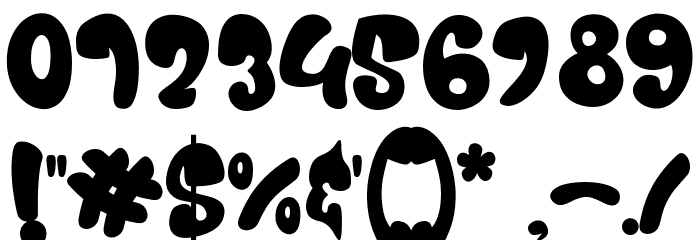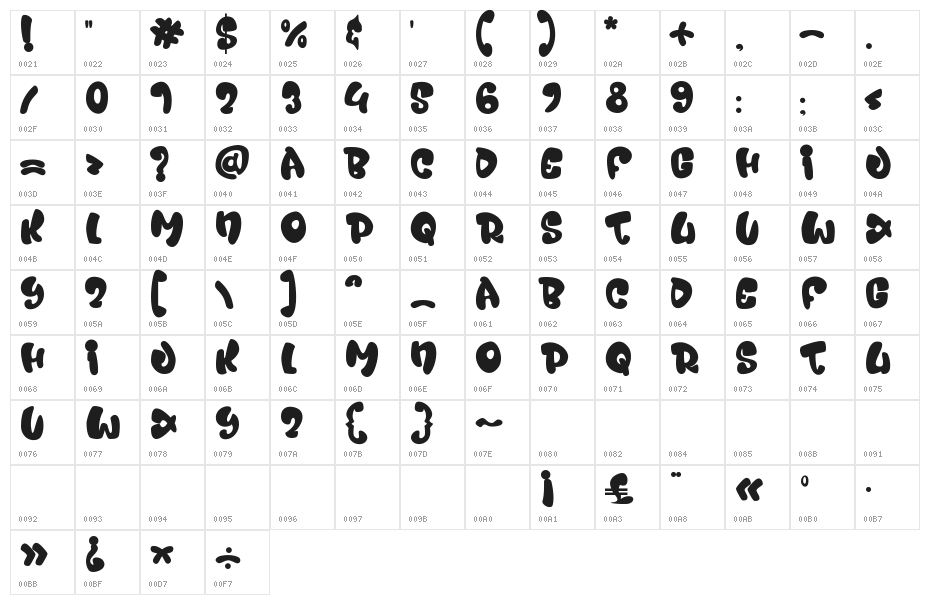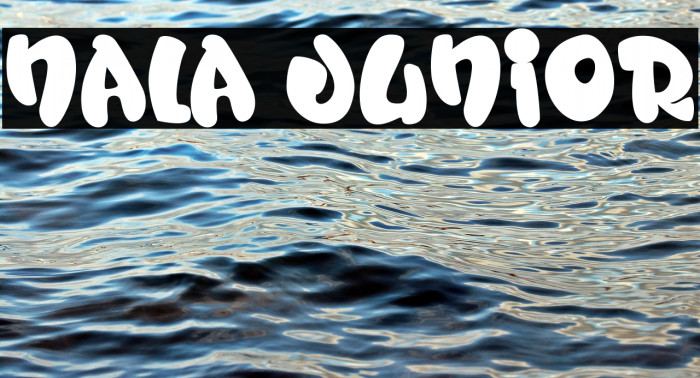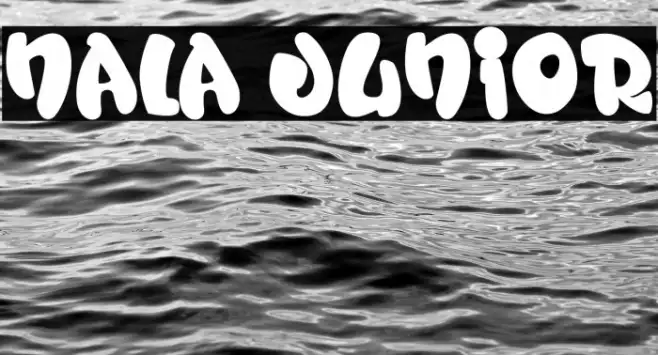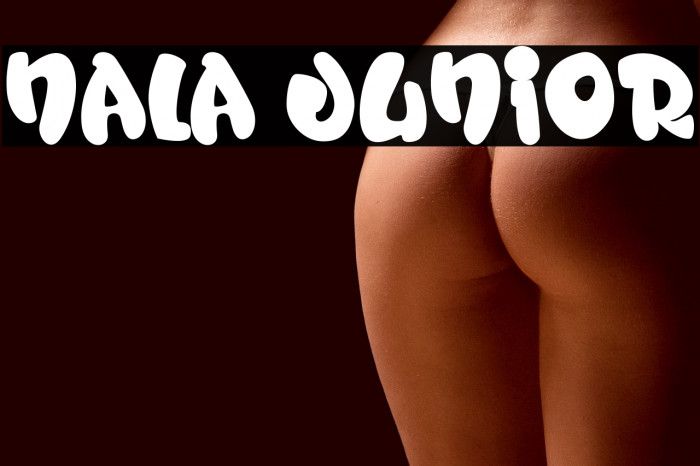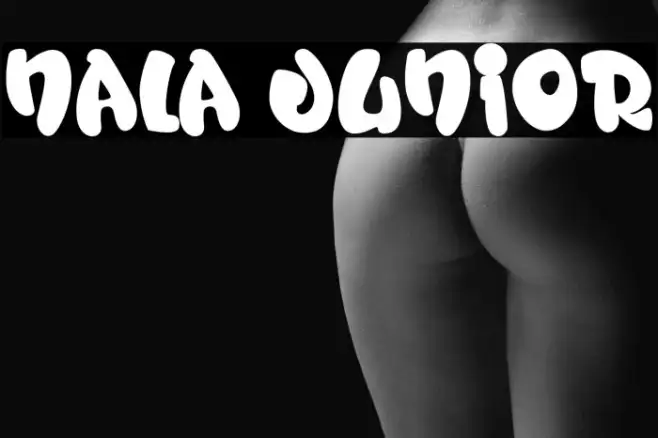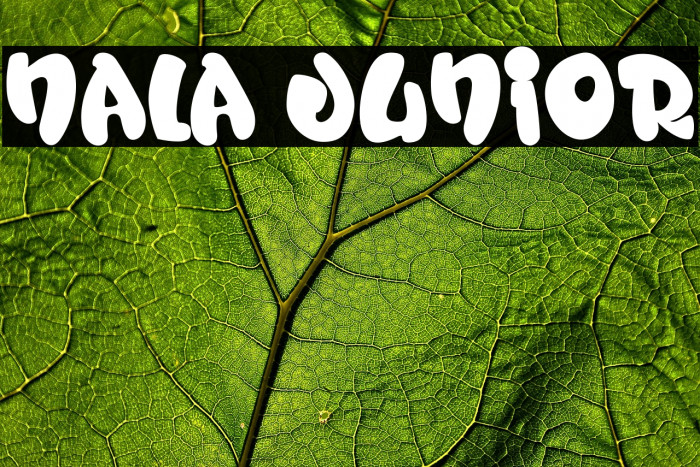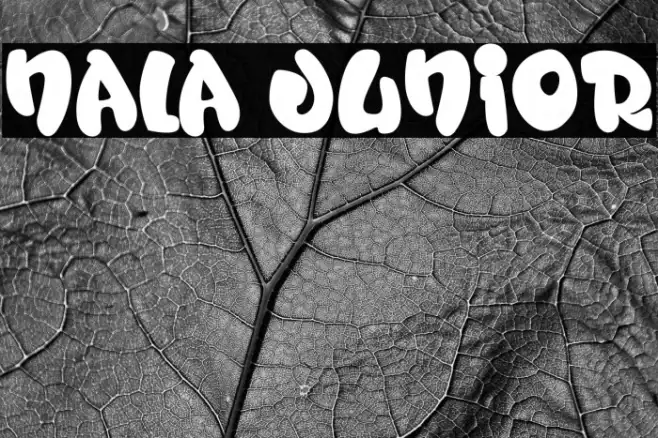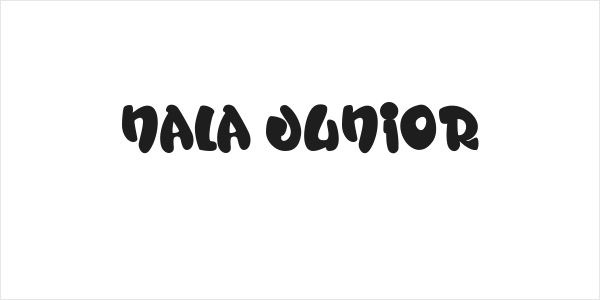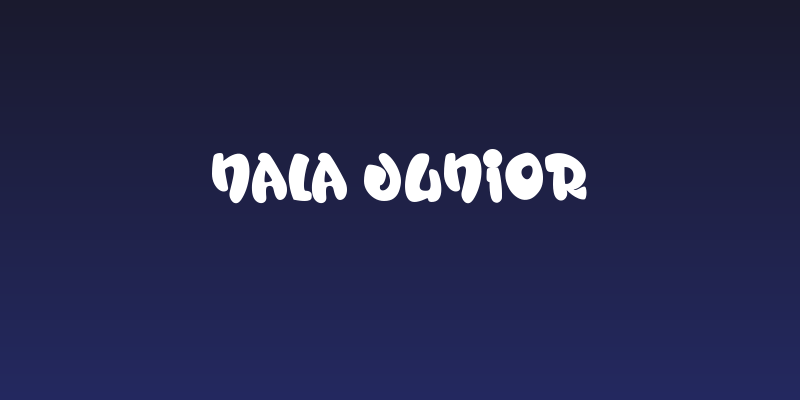
Nala Junior Font
This font features a bold and playful design with rounded, bubbly characters. The letters are thick and have a whimsical, cartoon-like appearance, making them stand out with a strong visual impact. The style is consistent across uppercase, lowercase, numbers, and special characters, maintaining a cohesive look. The exaggerated curves and rounded edges give it a friendly and approachable feel, suitable for creative and informal applications. The font's unique personality is evident in its distinctive shapes and bold presence, making it ideal for projects that require a fun and lively touch.